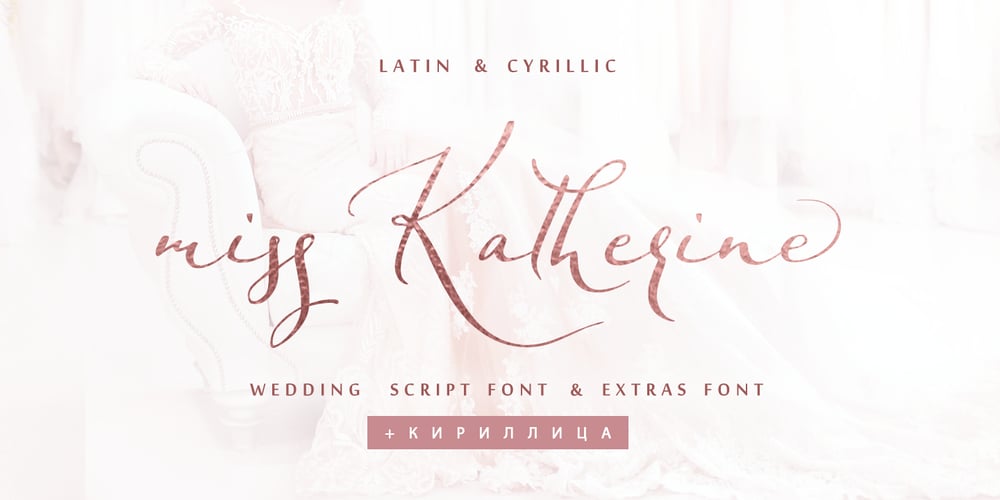
Miss Katherine Cyrillic
Miss Katherine Cyrillic font
Miss Katherine Cyrillic Font Family was designed by Iryna Dviliuk and published by Ira Dvilyuk. Miss Katherine Cyrillic contains 2 styles and family package options. Wedding calligraphic script font Miss Katherine Cyrillic is the best option for your wedding stationery, invitation designs, social media, branding, logo designs, product packaging and other projects.Miss Katherine Cyrillic is an elegant, graceful handwritten script font, as well as a Miss Katherine Symbols font with 36 lovely hand-drawn flourishes and illustrations.Miss Katherine script font contains the Cyrillic glyphs too.Miss Katherine script Latin part contains a full set of uppercase letters and 4 full sets of lowercase letters, (standard, alternative, initial and final forms). To make a needed form just type a letter with a number such as a1, b1, c1…after that selecting the word and apply the Open Type Features in programmes such as Adobe Illustrator, Photoshop, and others) And 36 ligatures – which can be used to create a handwritten look.The Cyrillic part of the font contains the uppercase letters and 3 full sets of lowercase letters, (standard, initial and final form. To make a needed form just type a letter with a number such as a1, б1 в1… After that select the word and apply the Open Type Features in programmes such as Adobe Illustrator, Photoshop, and others) Miss Katherine Symbols is a font with over 36 hand-drawn elements, flourishes catchwords, and swashes and can help to make your design unique and matchless. Combine and merge swashes and illustrations to create your own designs and make borders, frames, dividers, logos, and more (just use A-Z or a-z and 0-9 keys in the included Miss Katherine Symbols font). A different symbol is assigned to each uppercase or lowercase standard character, so you do not need graphics software, just type the letter you need.Language Support for 31 languages: Latin glyphs for Afrikaans, Albanian, Basque, Bosnian, Catalan, Danish, Dutch, English, Estonian, Faroese, Filipino, Finnish, French, Galician, Indonesian, Irish, Italian, Malay, Norwegian Bokmål, Portuguese, Slovenian, Spanish, Swahili, Swedish, Turkish, Welsh, Zulu.And Cyrillic glyphs support for Russian, Belorussian, Bulgarian, Kazakh and Ukrainian languages.Works perfectly on the Canva platform.For Cricut & Silhouette recommended.